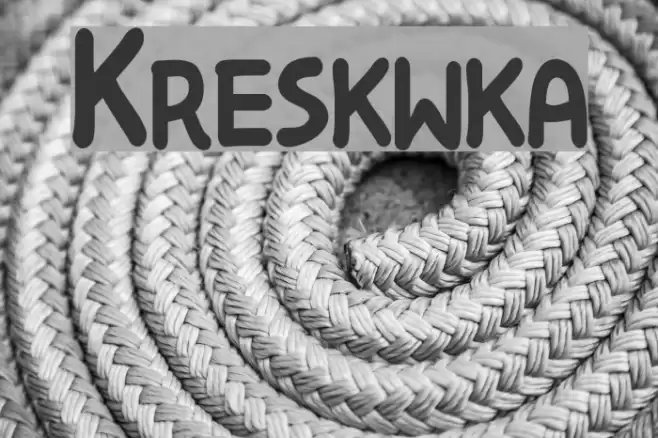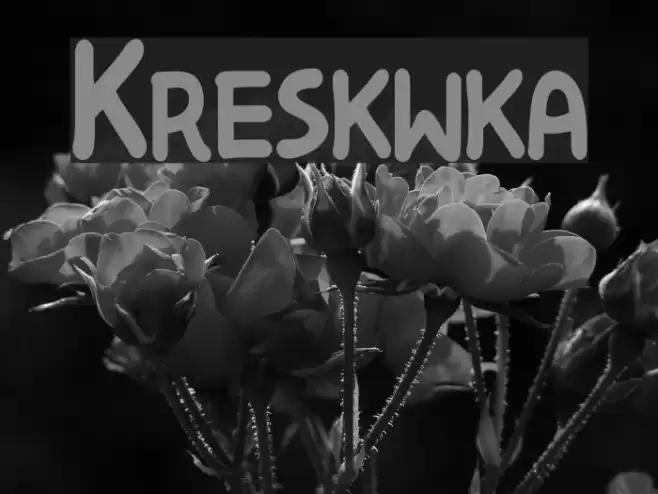
Kreskwka Font
Kreskwka Description
This playful and bold font features rounded, thick strokes that give it a friendly and approachable appearance. The characters are slightly irregular, adding a hand-drawn feel that enhances its casual and informal style. The uppercase and lowercase letters maintain a consistent weight, contributing to a cohesive look. The numbers and special characters are designed with the same playful aesthetic, making them suitable for a variety of creative projects. The font's overall style is reminiscent of comic book lettering, making it ideal for projects that require a fun and lively touch.
A bold, playful font with rounded, hand-drawn characters from Cartoon fonts.
- Proposed Projects: Ideal for children's books, comic strips, playful branding, and casual invitations.
- Overall Style: Playful, Casual